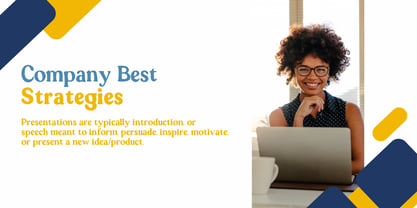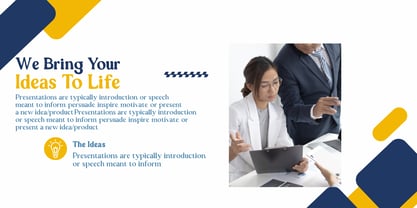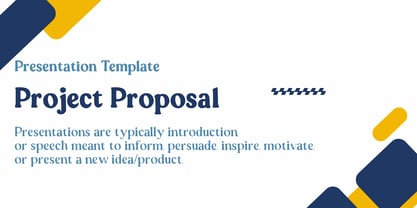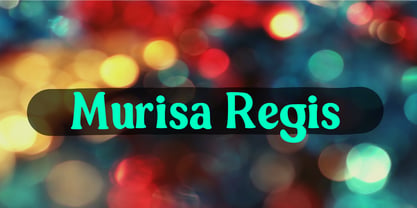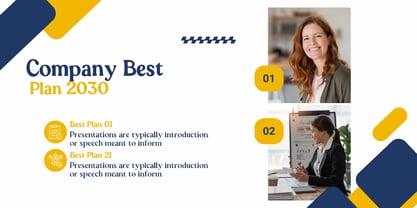
Murisa Regis
The Murisa Regis Font Family was designed by Lili Sadili and published by Murisa Studio. Murisa Regis contains 5 styles and family package options. More about this family
Today tolong bikin deskripsi dalam bahasa inggris tentang font yang telah saya buat itu. Nama font nya adalah Murisa Regis. Saya sudah membuat 5 style dari font itu yakni regular, italic, bold, light dan heavy. Font saya ini juga telah mendukung penulisan untuk masyarakat eropa timur. Jangan ada kata lisensi komersial. Khusus untuk kali ini ada promo diskon 50%. Buat semenarik mungkin, boleh pakai ikon untuk menambah daya tariknya. ✨ Introducing Murisa Regis – a typeface crafted with elegance, personality, and versatility. Murisa Regis is a serif font family designed to bring a playful yet refined touch to your creative projects. Its curvy strokes and subtle serifs make it stand out in both modern and classic layouts. 🌟 Key Features Five styles: Regular, Italic, Bold, Light, and Heavy – giving you full flexibility for headlines, body text, and standout designs. Eastern European support: Murisa Regis is built with extended character sets, ensuring smooth usage across diverse languages. Distinct personality: A balance of playful curves and strong strokes, perfect for branding, editorial, and digital design. 🎨 Why Choose Murisa Regis? Adds sophistication to logos, posters, and editorial layouts. Works beautifully in both print and digital projects. Offers a versatile range of weights for maximum creative freedom. 💥 Special Promo For a limited time, enjoy 50% OFF the Murisa Regis font family. Elevate your typography game while saving big!